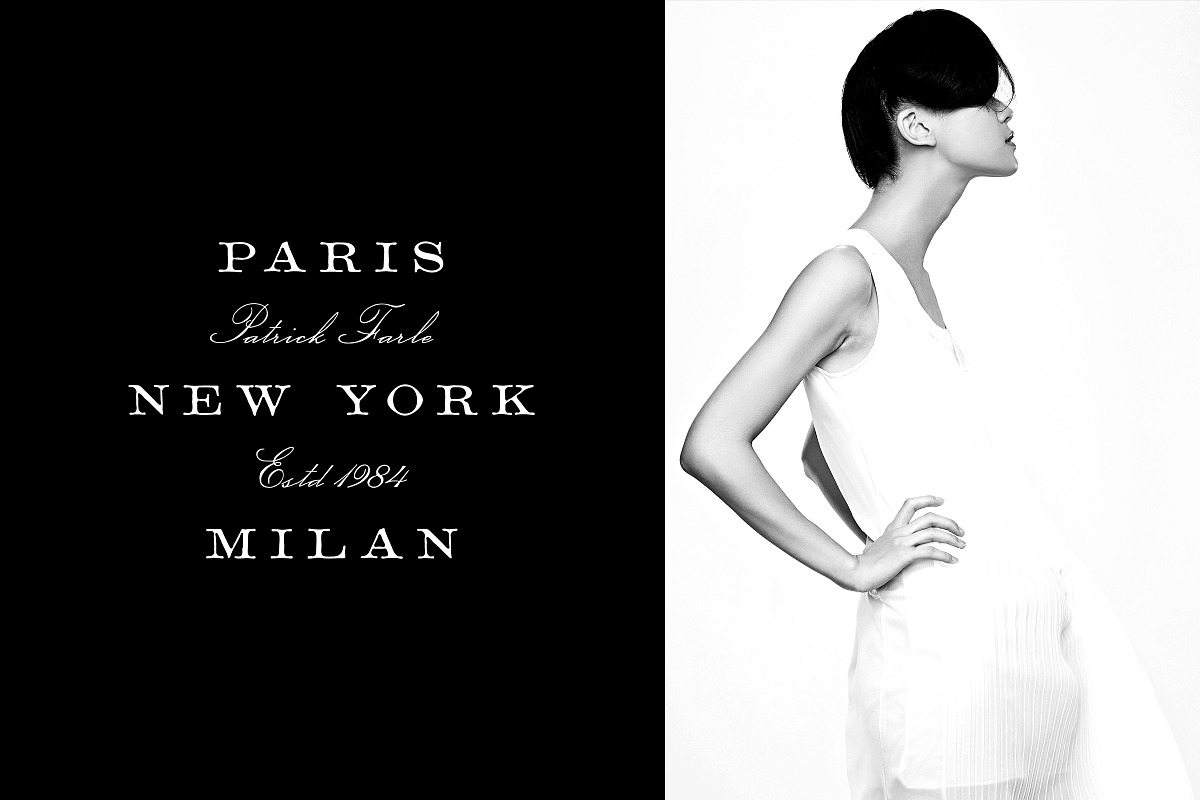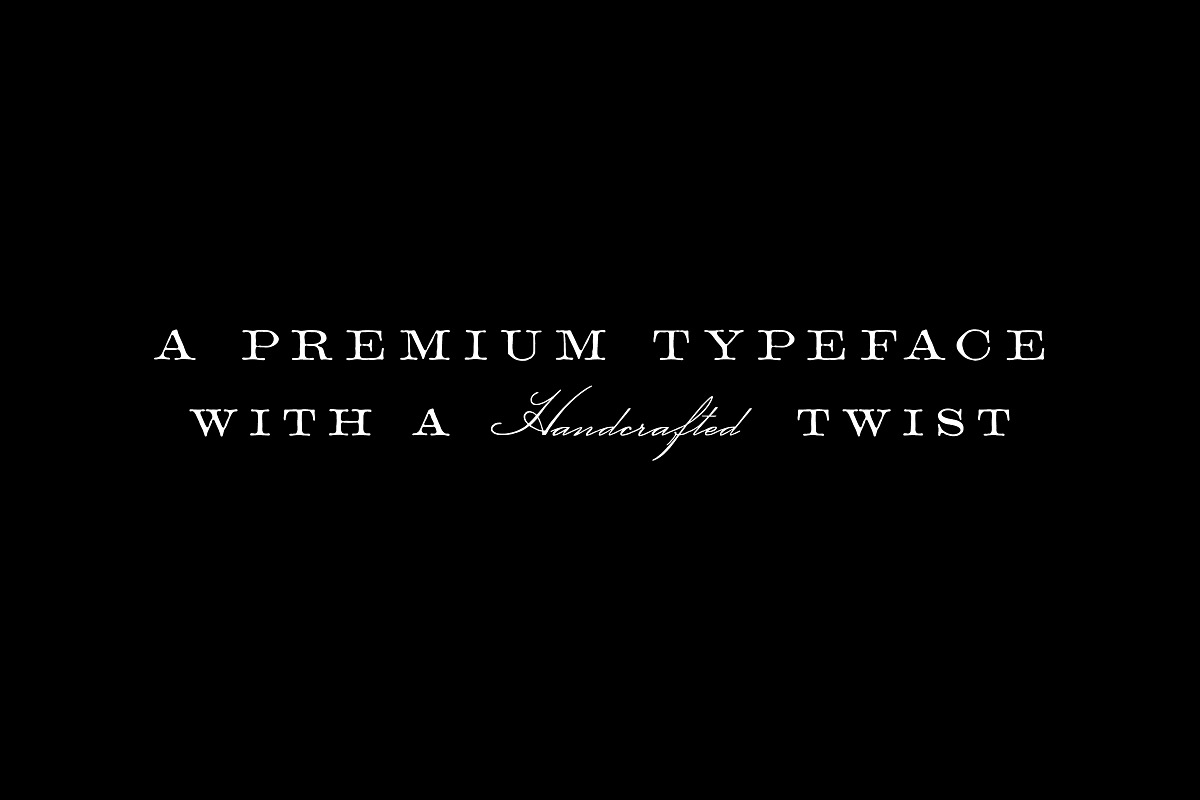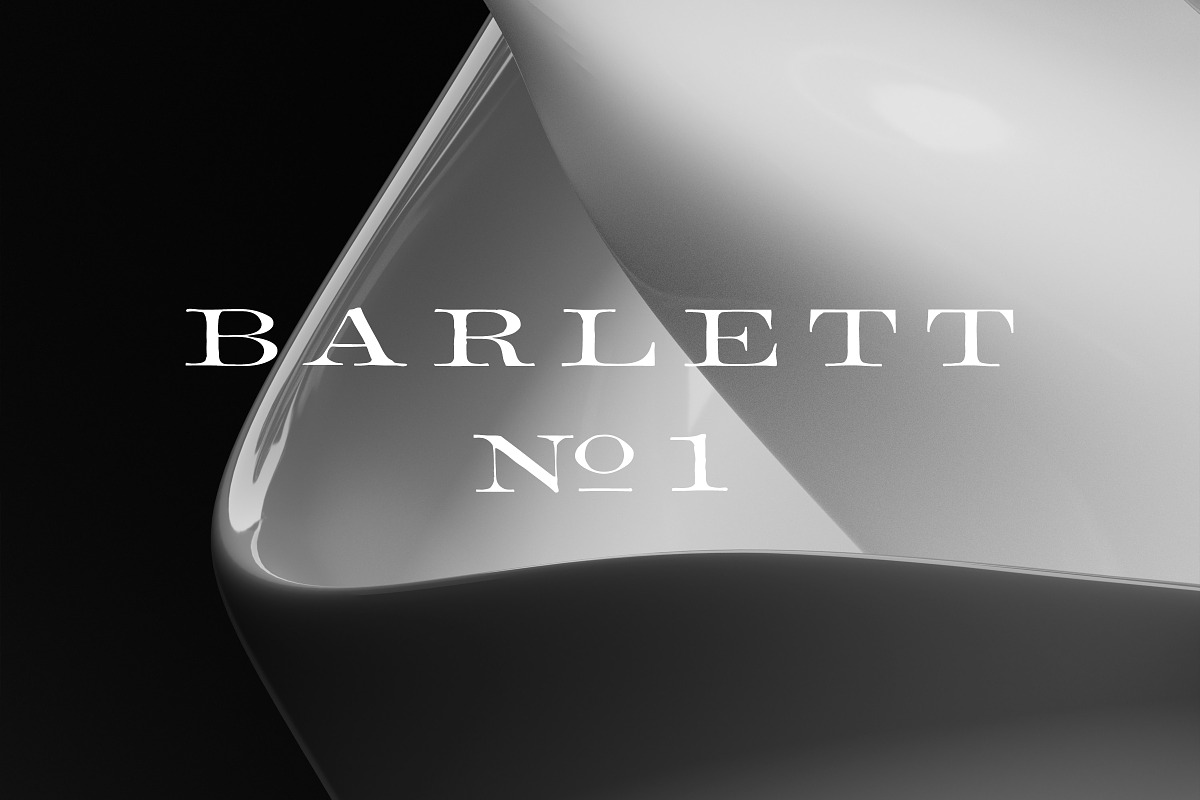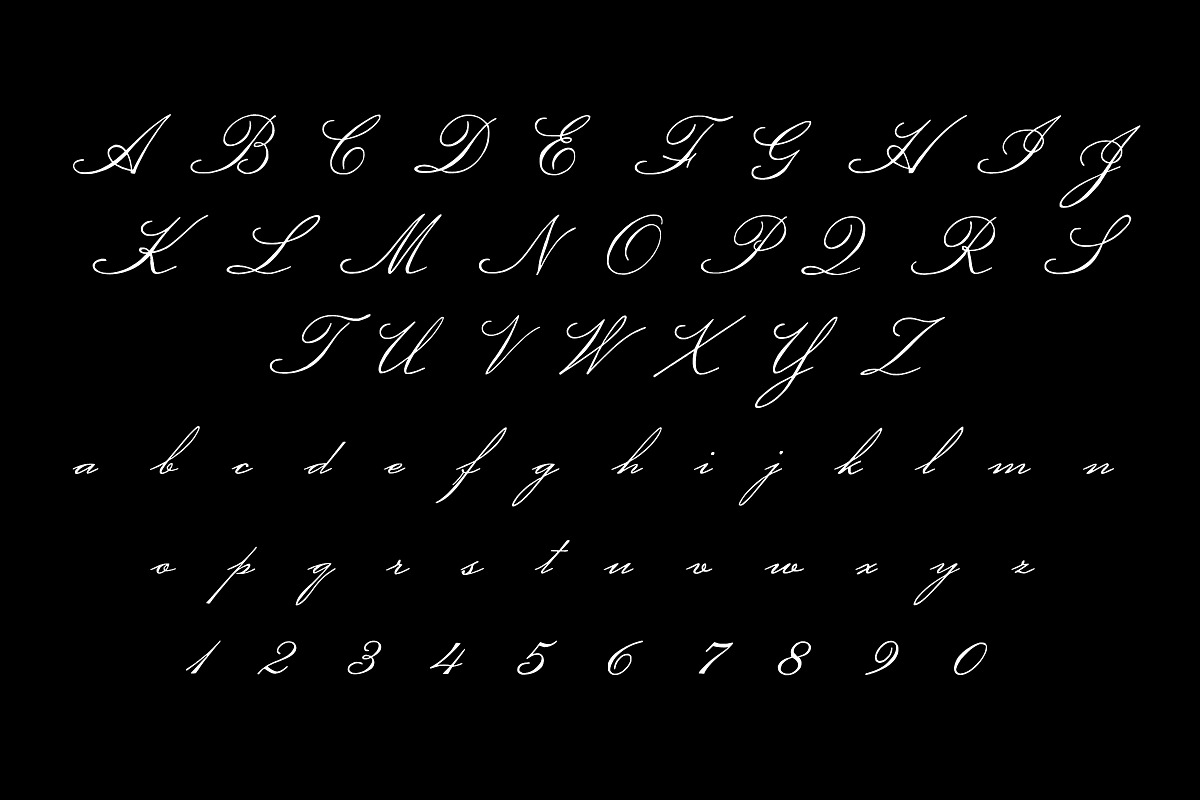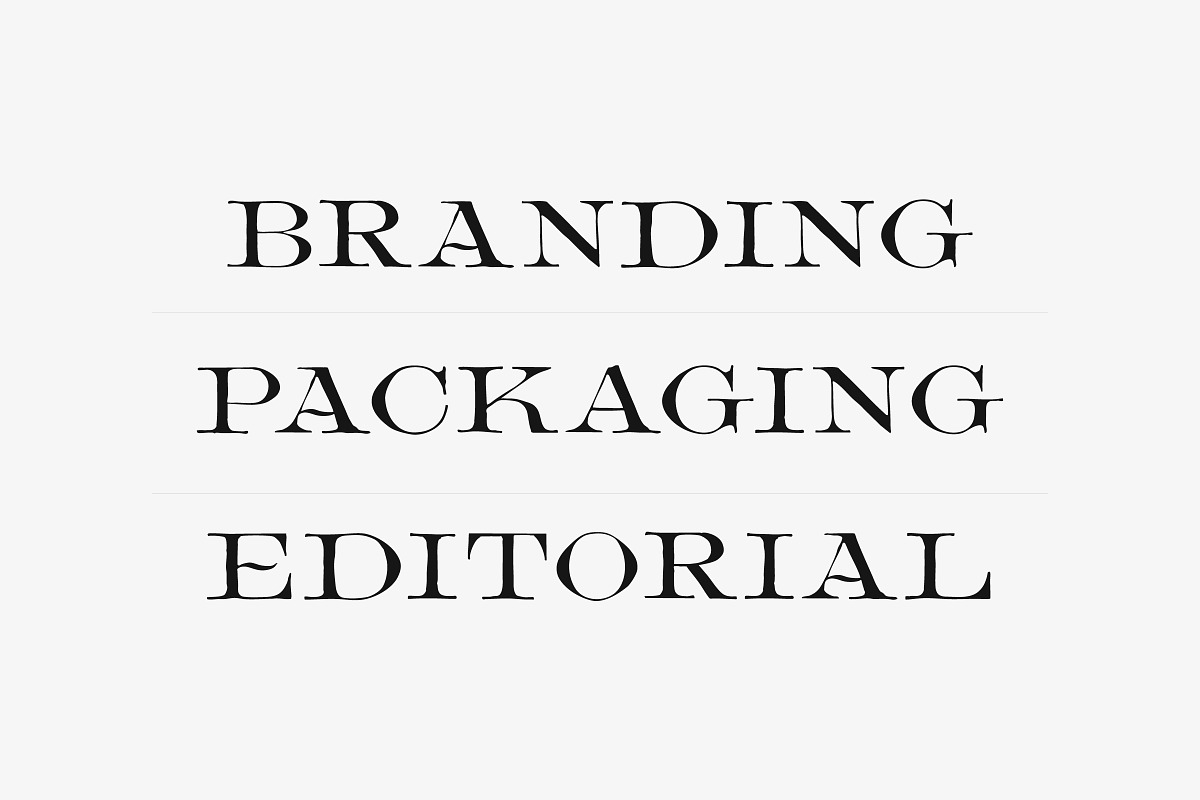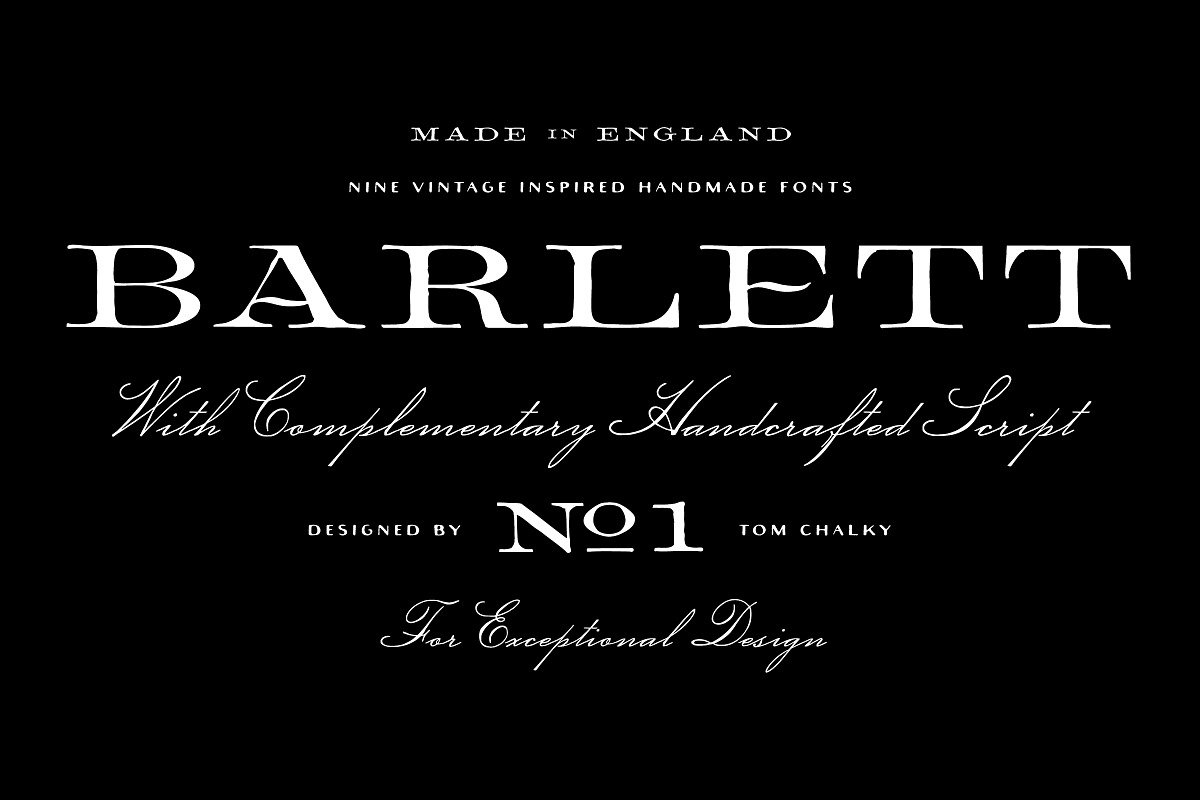
Barlett No1 Vintage Serif and Script
Barlett No.1 is a premium handcrafted font family that blends traditional charm with modern functionality. Inspired by 1800s English typefaces, this 9-style collection includes a range of serif styles and an elegant complementary script - all designed to bring a sense of character, imperfection, and manmade authenticity to premium design work.
From editorial headlines to whisky labels, boutique branding to product packaging, Barlett No.1's subtle irregularities and vintage-inspired details make it the ideal choice when you want to inject personality into premium design.
The family includes:
- Regular, bold, expanded, and rounded serif variants
- A flowing, handcrafted script for contrast and elegance
- A useful selection of stylistic alternates and custom ligatures
Whether you're building a high-end brand, crafting elegant print materials, or adding nostalgic flair to your packaging, Barlett No.1 gives your typography an unmistakably handcrafted twist rooted in tradition.